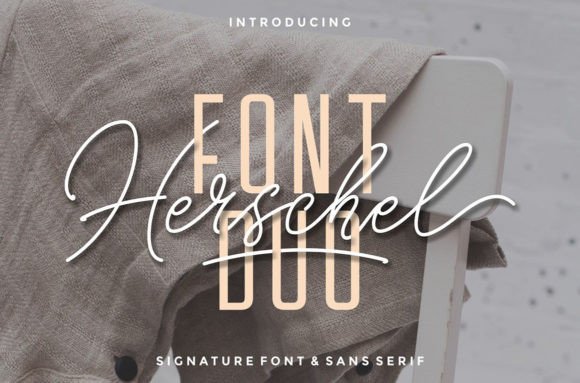
Indulge in the world of Herschel Font, a modern duo font that's ready to ignite your designs with its bold presence and elegant script. Experience the perfect harmony between the sharp lines of the sans-serif display font and the flowing beauty of the script, creating a symphony of styles that will leave you spellbound.
With Herschel Font, you'll embark on a journey of creativity, where your designs take center stage. Its versatility knows no bounds, making it the ideal companion for branding projects that demand attention. Let your logos, packaging, and editorial layouts dance with a captivating blend of boldness and sophistication, leaving an unforgettable impression on your audience.
Herschel Font's sans-serif display font exudes power and legibility, grabbing attention with its clean and geometric lines. Its strong character ensures your headlines, titles, and posters command attention, while the complementary script font adds a touch of grace and elegance. This harmonious duo empowers you to craft designs that resonate with your audience, leaving them captivated and inspired.
Unleash the full potential of your creativity with Herschel Font. Its versatility extends beyond branding projects, making it a perfect fit for editorial layouts that demand a touch of class. Let your words dance across the page, adorned with the elegance of the script font, while the sans-serif display font provides the structure and stability your designs need to shine.
Welcome to the world of Herschel Font, where your designs will flourish and your creativity will soar. Discover the endless possibilities that await you with this modern duo font, and let your projects radiate with a blend of boldness and sophistication that will leave your audience breathless.